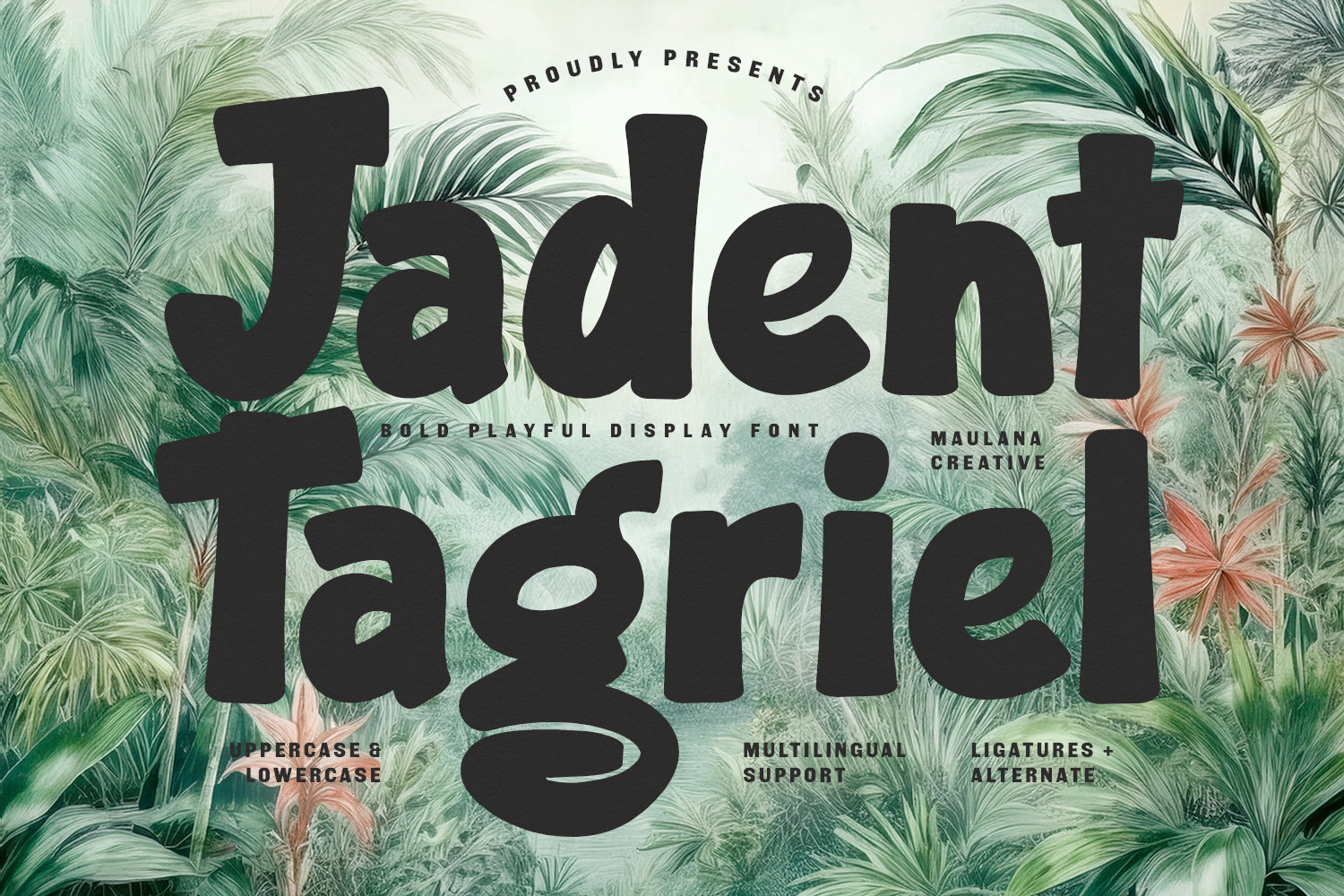
Jadent Tagriel Playful Display Font
Jadent Tagriel is a bold and playful display font designed to bring a vibrant energy to any creative project. Characterized by its thick, rounded strokes and organic feel, this typeface is perfect for headlines, posters, and branding that require a friendly yet impactful presence. It features a full set of uppercase and lowercase letters, numbers, and punctuation, along with unique ligatures and alternates to provide variety in design. With comprehensive multilingual support, it ensures versatility across different languages and global applications.
- Ligatures and alternate for a natural handwriting flow